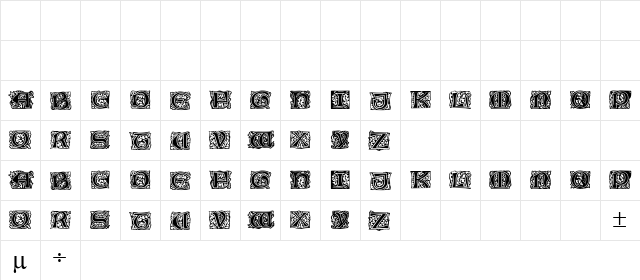
Jeff Regular
Design Context for Jeff Typeface
Jeff is a composed and adaptable typeface that performs quietly and consistently across a wide range of design contexts.